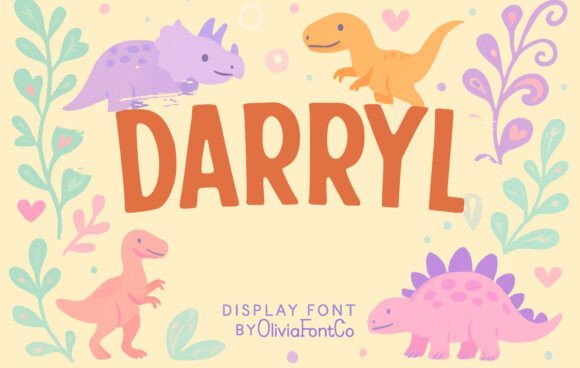
Unleash Your Creativity with Darryl Font
Have you ever been in a creative flow, where ideas seem to pour out of you like water from a fountain? It’s a magical feeling, and the right font can help you tap into that magic. For designers, the perfect font can be the difference between a good design and a great one.
That’s where Darryl Font comes in – a true favorite among designers, with the potential to take your creative ideas to the highest level. This versatile font is legible and looks great as a title or body text, making it perfect for a wide range of designs, from magazine headlines to social media graphics, and even wedding invitations and cards.
Darryl Font Key Features
- Font Family: Darryl is a sans-serif font family, specifically designed for digital use.
- Unique Characteristics: Darryl features a clean and modern design, with a focus on legibility and readability in digital environments.
Darryl Font Review
I recently had the chance to work with the Darryl Font, and I wanted to share my honest thoughts on this typeface. Here’s what I found:
- ✨ The Darryl Font has a unique, elegant feel to it, making it perfect for high-end branding and luxury materials.
- ✨ The font is highly legible, even at smaller font sizes, which is a must for any professional font.
- ✨ The Darryl Font has a wide range of weights and styles, giving designers a lot of flexibility when it comes to choosing the perfect look for their project.
- ⚠️ The Darryl Font may not be the best choice for body text or large blocks of text, as it can start to feel a bit too ornate.
Overall, I think the Darryl Font is a great choice for designers who want to add a touch of elegance and sophistication to their projects. While it may have some limitations, I believe the benefits far outweigh the drawbacks.
Tips for Getting the Most Out of Darryl Font
For best results, use Darryl Font in titles and headings to create a bold and eye-catching visual effect.
Experiment with different font sizes and colors to add depth and interest to your design.
Darryl Font is commonly used in:
- Logo designs
- Brochure and flyer designs
- Business card designs
- Infographics and data visualizations
Alternatives to Darryl Font for Designers
Lato is a popular sans-serif font designed by Łukasz Dziedzic. It’s a great alternative to Darryl Font when you need a clean and modern look for your design project. Lato is highly legible and works well for both headings and body text. It’s also a great choice for digital products, such as websites and mobile apps.
Compared to Darryl Font, Lato has a more geometric and minimalist design, making it a great choice for modern and sleek designs. However, Lato lacks the unique character and personality of Darryl Font, so it’s best suited for projects where a clean and neutral design is desired.
Open Sans is a highly legible sans-serif font designed by Steve Matteson. It’s a great alternative to Darryl Font when you need a font that’s easy to read and works well in a variety of contexts. Open Sans is a great choice for body text and works well in digital products, such as websites and mobile apps.
Compared to Darryl Font, Open Sans has a more straightforward and utilitarian design, making it a great choice for projects where readability is the top priority. However, Open Sans lacks the unique character and personality of Darryl Font, so it’s best suited for projects where a clean and neutral design is desired.
Montserrat is a sans-serif font designed by Julieta Ulanovsky. It’s a great alternative to Darryl Font when you need a font that’s urban and edgy. Montserrat is a great choice for headings and works well in digital products, such as websites and mobile apps.
Project Ideas Using Darryl Font
Project 1: Whimsical Watercolor Menu
A playful and artistic menu design that combines the Darryl font with watercolor elements and pastel colors.